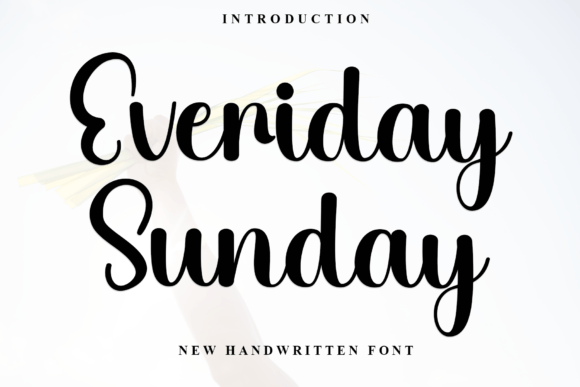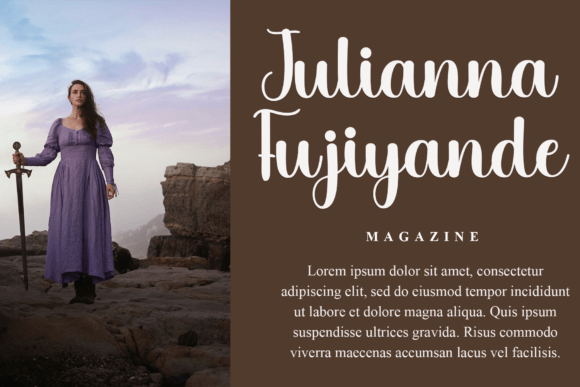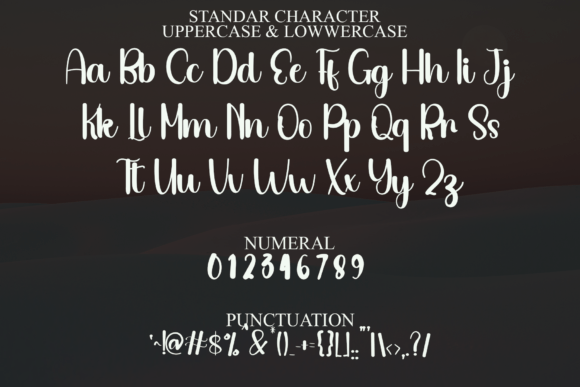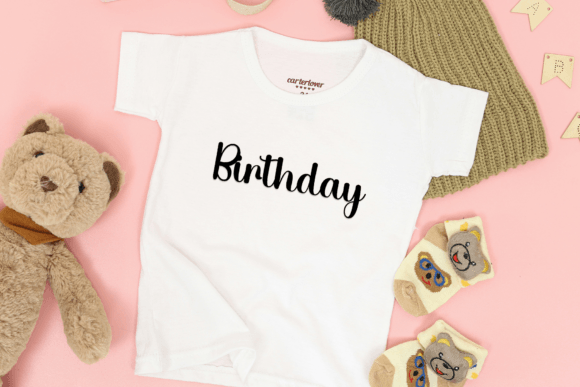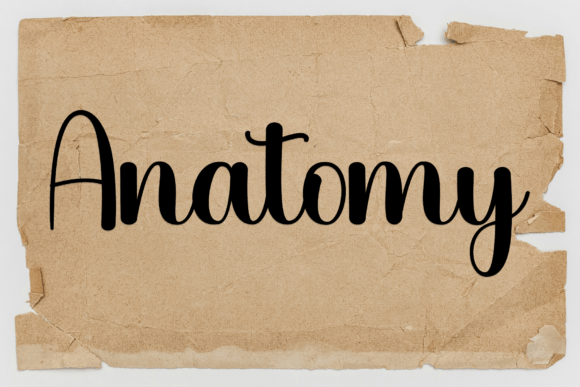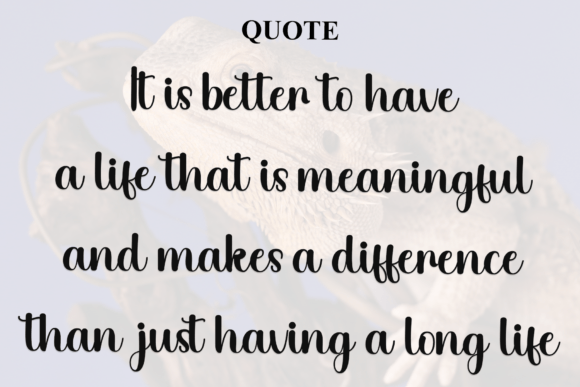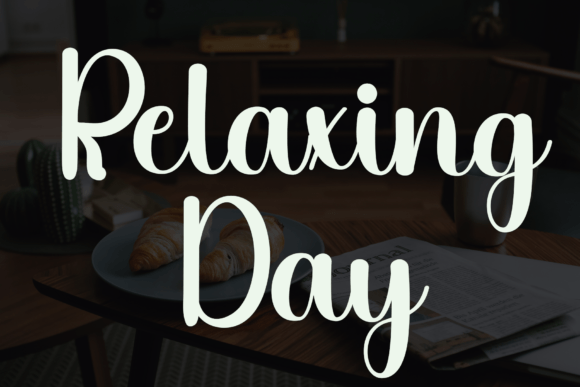
A Sunday Funday of Font Inspiration
There’s something magical about a blank canvas, waiting to be filled with creativity. You’re scrolling through your social media feeds, and suddenly, you stumble upon a beautifully designed logo or invitation that catches your eye. You can’t help but wonder, “What font did they use?” And that’s when the search begins. Today, we’re excited to introduce you to the Everiday Sunday Font, a stunning handwritten font that’s perfect for adding a touch of elegance to your designs.
This refined font is a designer’s dream come true, with its modern look and PUA encoding making it easy to access all the amazing glyphs and ligatures. Whether you’re creating logos, branding materials, or social media posts, the Everiday Sunday Font is sure to elevate your designs to the next level. Its versatility and sophistication make it a valuable addition to any designer’s toolkit.
Everiday Sunday Font Key Features
- Font Family: Everiday Sunday is a unique, hand-drawn font designed for informal and casual use.
- Unique Characteristics: Features a playful, handwritten feel with varying line widths and subtle imperfections, giving it a personal touch.
Everiday Sunday Font Review
Overall, I think the Everiday Sunday font is a great addition to any designer’s toolkit. It’s a beautiful, hand-drawn font that’s perfect for creating a relaxed, casual vibe in your designs.
- Unique, hand-drawn feel that sets it apart from more generic fonts
- Perfect for creating a laid-back, Sunday afternoon feel in your designs
- Works well for titles, headings, and even body text in certain contexts
- May be too casual for formal or corporate designs
- Some letters may be difficult to read at smaller font sizes
- Lack of bold and italic weights may limit its use in certain situations
Overall, I’d give the Everiday Sunday font 4 out of 5 stars. It’s a great choice for designers looking to add a touch of personality to their work, but may not be the best fit for every project. With a little creativity and experimentation, though, I think it can be a real game-changer in the right context.
The Everiday Sunday Font is a great choice for creative projects, such as:
- Food and lifestyle blog posts
- Social media graphics and ads
- Personalized gifts and merchandise
Remember to use the font consistently throughout your project to maintain a cohesive look and feel.
Alternatives to Everiday Sunday Font
Pacifico is a beautiful, elegant script font that is perfect for designing invitations, wedding cards, and other formal documents. It has a soft, flowing feel that makes it ideal for creating a romantic or vintage look. Compared to Everiday Sunday Font, Pacifico has a more refined and sophisticated feel, making it a great choice for designers who want to create a high-end look.
Great Vibes is a modern, cursive script font that is perfect for designing logos, posters, and other promotional materials. It has a fun, energetic feel that makes it ideal for creating a playful or youthful look. Compared to Everiday Sunday Font, Great Vibes has a more dynamic and attention-grabbing feel, making it a great choice for designers who want to create a bold and eye-catching design.
Carolyna Pro is a elegant, modern script font that is perfect for designing logos, branding materials, and other corporate documents. It has a sophisticated and refined feel that makes it ideal for creating a professional or luxurious look. Compared to Everiday Sunday Font, Carolyna Pro has a more polished and refined feel, making it a great choice for designers who want to create a high-end look.